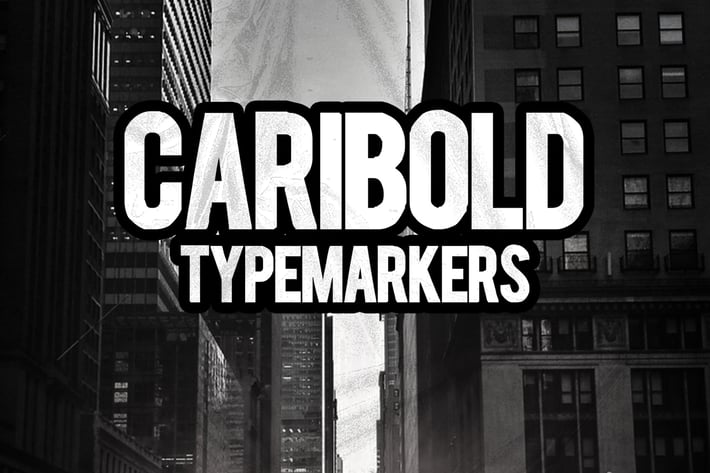
CARIBOLD Font
Font introduce this standard, CARIBOLD. Standard font style markers, which firmly. I hope you are interested in using for your job. thanks